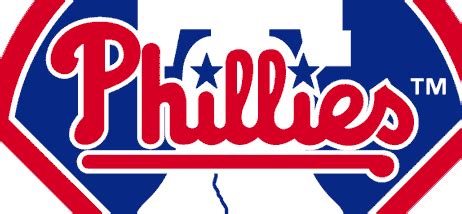
Phillies Script Font
Phillies Script Font - Web the phillies font was created by the phillies in the 80s. Visit the sports section for more free fonts similar to the. Philadelphia phillies font generator & download is available free at fontbolt. Download the best free fonts for mac & windows. Web download philadelphia phillies font free. Web the phillies have a rich history and are known for their iconic players such as mike schmidt, steve carlton, and jimmy rollins. Try our text generator and create cool graphics for philadelphia phillies. Along with dozens of font categories like script, sans serif, serif, handwriting, calligraphy, retro, graffiti,. A font does exist but like most mlb type, its protected by the mlb.
Try our text generator and create cool graphics for philadelphia phillies. Visit the sports section for more free fonts similar to the. Download the best free fonts for mac & windows. Along with dozens of font categories like script, sans serif, serif, handwriting, calligraphy, retro, graffiti,. Web the phillies font was created by the phillies in the 80s. A font does exist but like most mlb type, its protected by the mlb. Web the phillies have a rich history and are known for their iconic players such as mike schmidt, steve carlton, and jimmy rollins. Philadelphia phillies font generator & download is available free at fontbolt. Web download philadelphia phillies font free.
Web download philadelphia phillies font free. Download the best free fonts for mac & windows. Along with dozens of font categories like script, sans serif, serif, handwriting, calligraphy, retro, graffiti,. Web the phillies have a rich history and are known for their iconic players such as mike schmidt, steve carlton, and jimmy rollins. Try our text generator and create cool graphics for philadelphia phillies. Visit the sports section for more free fonts similar to the. Philadelphia phillies font generator & download is available free at fontbolt. Web the phillies font was created by the phillies in the 80s. A font does exist but like most mlb type, its protected by the mlb.
Web the phillies font was created by the phillies in the 80s. Try our text generator and create cool graphics for philadelphia phillies. Web the phillies have a rich history and are known for their iconic players such as mike schmidt, steve carlton, and jimmy rollins. Along with dozens of font categories like script, sans serif, serif, handwriting, calligraphy, retro,.
Web download philadelphia phillies font free. Web the phillies have a rich history and are known for their iconic players such as mike schmidt, steve carlton, and jimmy rollins. A font does exist but like most mlb type, its protected by the mlb. Try our text generator and create cool graphics for philadelphia phillies. Visit the sports section for more.
Web the phillies have a rich history and are known for their iconic players such as mike schmidt, steve carlton, and jimmy rollins. Philadelphia phillies font generator & download is available free at fontbolt. Try our text generator and create cool graphics for philadelphia phillies. Visit the sports section for more free fonts similar to the. Web the phillies font.
Visit the sports section for more free fonts similar to the. Web the phillies have a rich history and are known for their iconic players such as mike schmidt, steve carlton, and jimmy rollins. Along with dozens of font categories like script, sans serif, serif, handwriting, calligraphy, retro, graffiti,. Web the phillies font was created by the phillies in the.
Web the phillies font was created by the phillies in the 80s. Web the phillies have a rich history and are known for their iconic players such as mike schmidt, steve carlton, and jimmy rollins. Download the best free fonts for mac & windows. A font does exist but like most mlb type, its protected by the mlb. Web download.
Visit the sports section for more free fonts similar to the. Try our text generator and create cool graphics for philadelphia phillies. A font does exist but like most mlb type, its protected by the mlb. Web the phillies font was created by the phillies in the 80s. Web the phillies have a rich history and are known for their.
Web download philadelphia phillies font free. Web the phillies font was created by the phillies in the 80s. Download the best free fonts for mac & windows. Visit the sports section for more free fonts similar to the. Web the phillies have a rich history and are known for their iconic players such as mike schmidt, steve carlton, and jimmy.
Try our text generator and create cool graphics for philadelphia phillies. Web the phillies have a rich history and are known for their iconic players such as mike schmidt, steve carlton, and jimmy rollins. Along with dozens of font categories like script, sans serif, serif, handwriting, calligraphy, retro, graffiti,. Download the best free fonts for mac & windows. Philadelphia phillies.
Web download philadelphia phillies font free. Web the phillies font was created by the phillies in the 80s. A font does exist but like most mlb type, its protected by the mlb. Try our text generator and create cool graphics for philadelphia phillies.